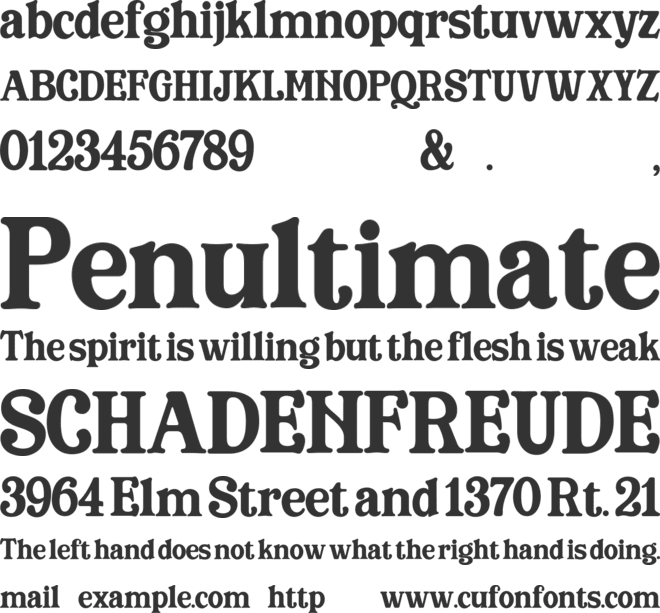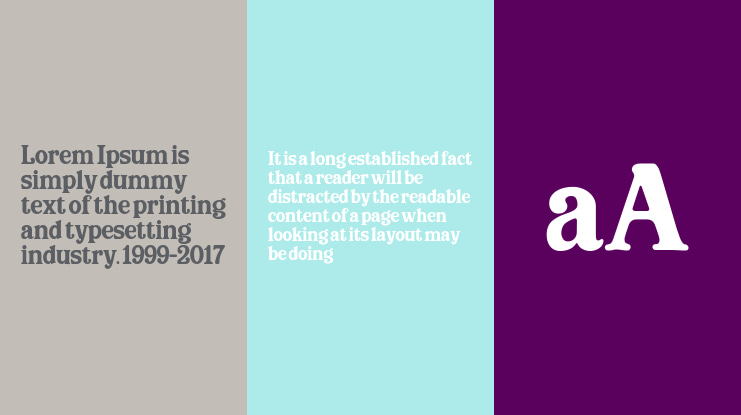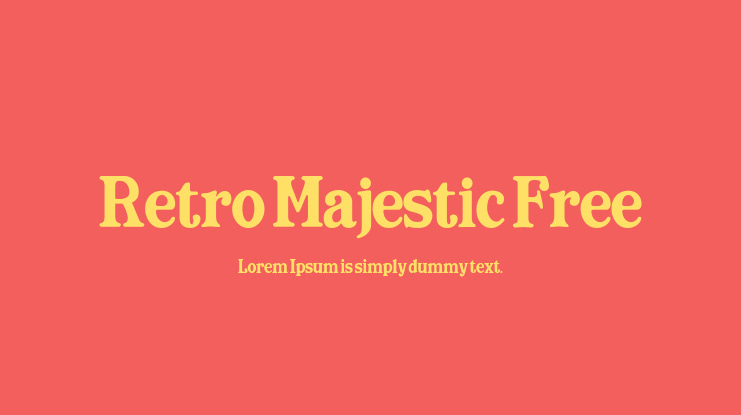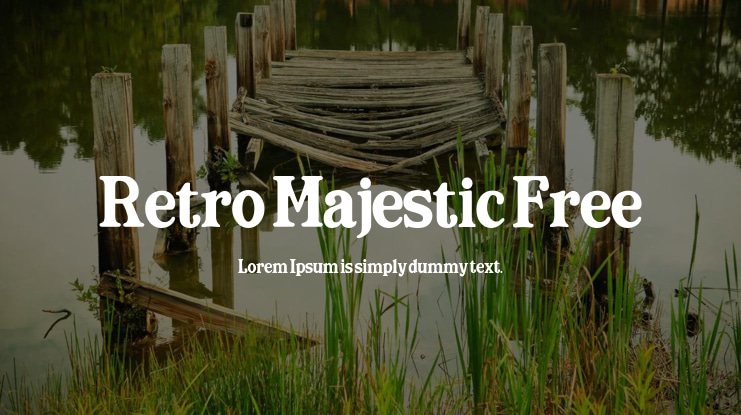
Retro Majestic Free Font Family
Introducing Retro Majestic , a retro-inspired serif font designed for eye-catching advertising, bold headlines, and timeless branding. With its thick, elegant letterforms and subtle curves, this typeface blends mid-century charm with modern versatility, making it perfect for posters, packaging, logos, and editorial design.
Featuring high-contrast strokes, smooth edges, and stylish retro flair, retro majestic evokes the golden era of advertising while maintaining flawless readability. Whether you're crafting a classic luxury ad, a nostalgic brand identity, or a bold print campaign, this font delivers impact and sophistication in every letter.
Features:
* Regular & Italic
* Uppercase & lowercase letters
* Punctual & Numbering
* Alternates & Ligatures
* Old Style Number